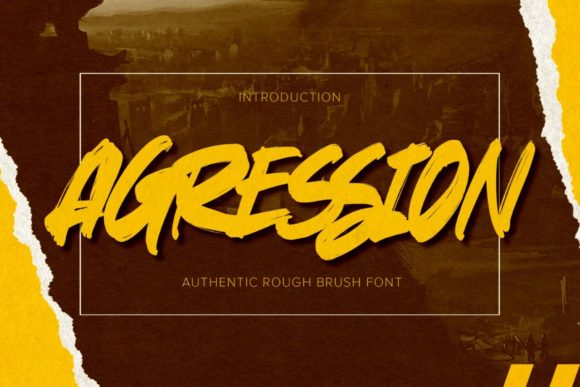
Introducing Agression Font, the ultimate display font that will bring a touch of drama and allure to your creative projects. Experience the thrill of crafting designs that ooze with mystery and allure, leaving an indelible mark on your audience.
With its sharp edges and distinct curves, Agression Font exudes an air of sophistication and intrigue, perfect for capturing attention and making a lasting impression. Dive into the depths of your imagination and explore endless possibilities, from spine-tingling Halloween crafts to haunting horror movie posters. Unleash the boldness of your brand with t-shirts that scream style and charisma. Let Agression Font be your creative ally, transforming ordinary designs into mesmerizing works of art.
Harnessing Agression Font's versatility, you can effortlessly elevate even the simplest designs. Embark on a journey of creativity, where every stroke of your pen becomes an expression of your artistic vision. Whether you're a seasoned designer or just starting out, Agression Font is the perfect companion, guiding you toward design excellence.
Unlock the power of Agression Font and transport your audience to a world of mystery and wonder. Its spellbinding allure will captivate their senses, leaving them enthralled and eager for more. Let Agression Font ignite your imagination and illuminate your path to design greatness.